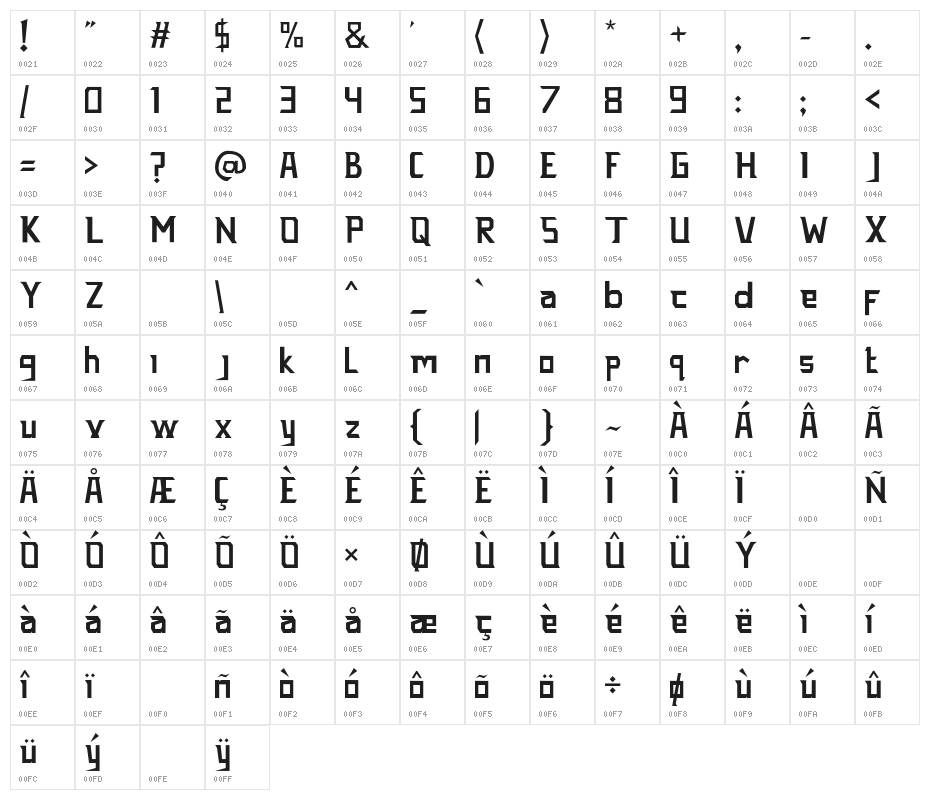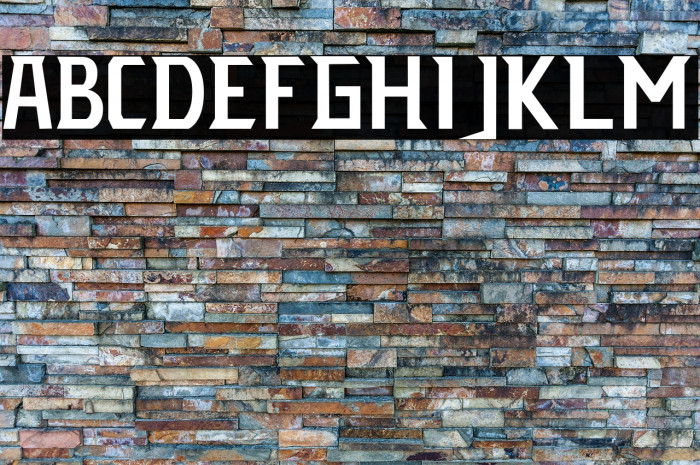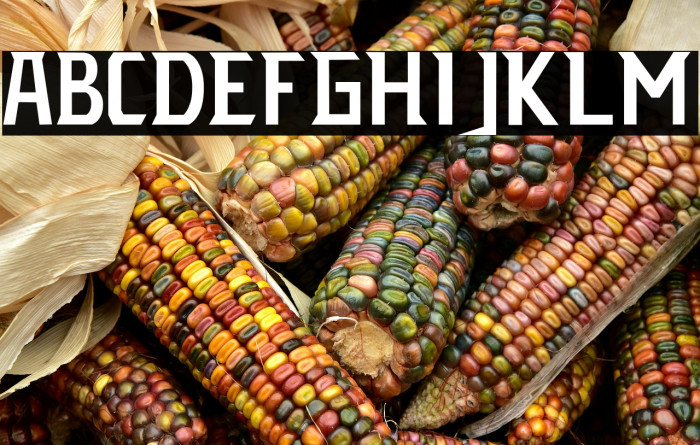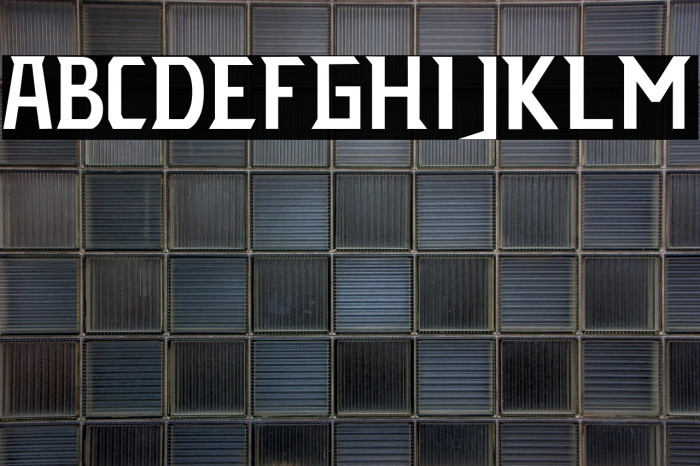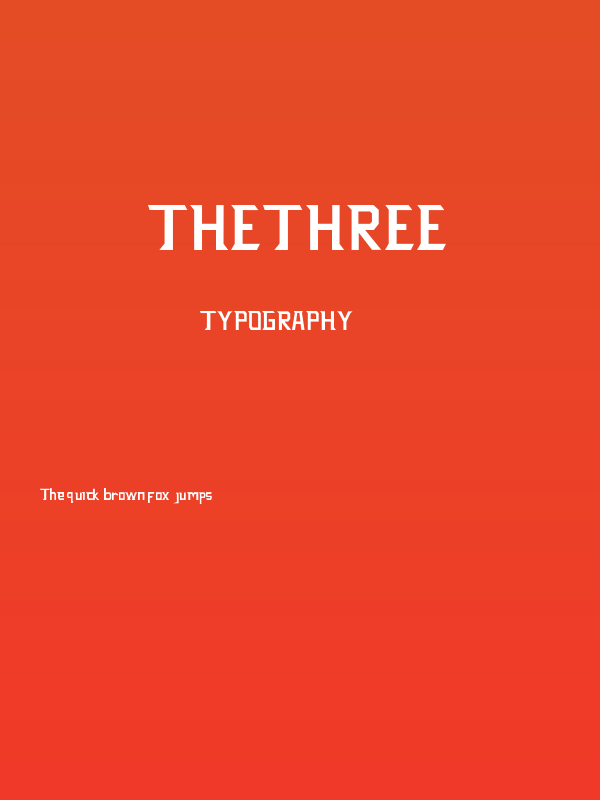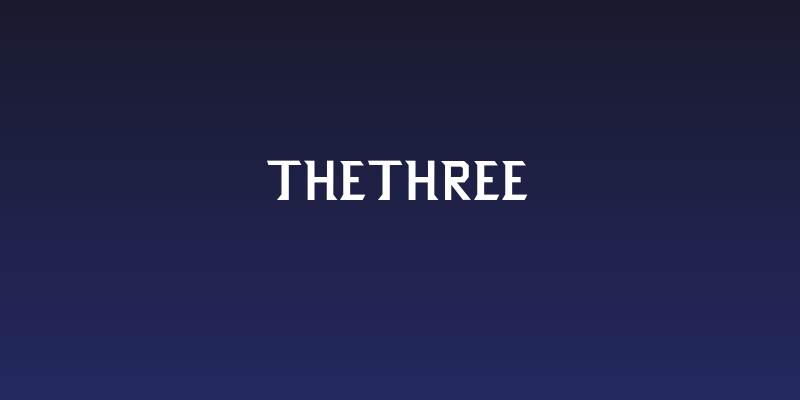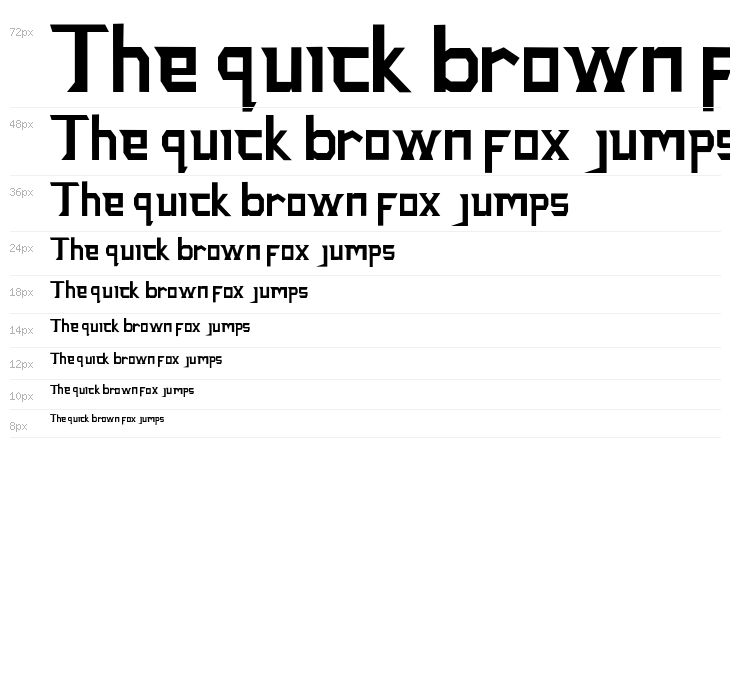
THETHREE Font
THETHREE Description
This font features a bold and angular design, characterized by sharp, geometric edges and a futuristic aesthetic. The uppercase letters are distinct with their pointed corners and strong vertical lines, creating a sense of movement and energy. The lowercase letters maintain this angular style, offering a cohesive look across both cases. Numerals are similarly styled, with a uniform width that complements the overall design. The special characters retain the sharp, edgy feel, making them suitable for attention-grabbing text. This font's unique style makes it ideal for projects that require a modern and dynamic appearance.